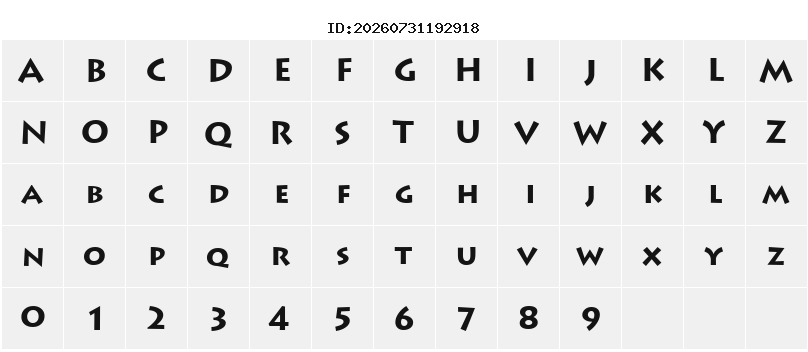
LeeToscanini7 Preview
• Font Name: LeeToscanini7
• Font Style: BoldSH
• Full Font Name: LeeToscanini7 BoldSH
About LeeToscanini7.ttf
LeeToscanini7.ttf is a modern, elegant sans-serif font designed for ultimate readability and visual harmony. Perfect for branding, headlines, web design, and print materials.